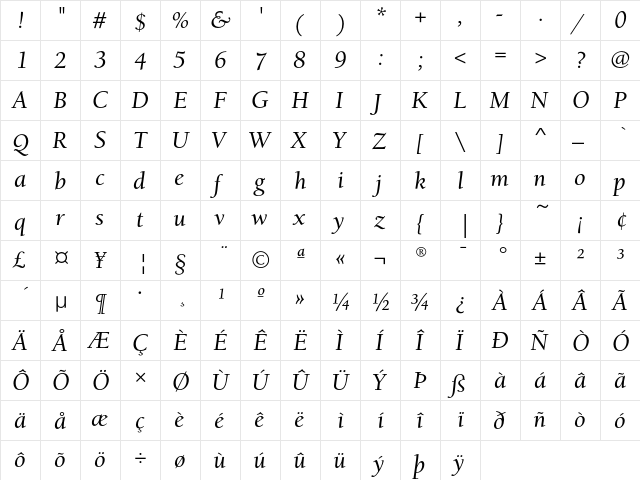
BerkeleyOldStyleEF MediumIta Font Preview
BerkeleyOldStyleEF MediumIta
Design Context for BerkeleyOldStyleEF Typeface
BerkeleyOldStyleEF carries the refined structure of traditional serif typography, with bracketed terminals and considered proportions that communicate credibility and craft.
Pro Tip: Use BerkeleyOldStyleEF for editorial body copy and considered headline work. Pair with a neutral sans for UI elements or captions to create a classic hierarchy.